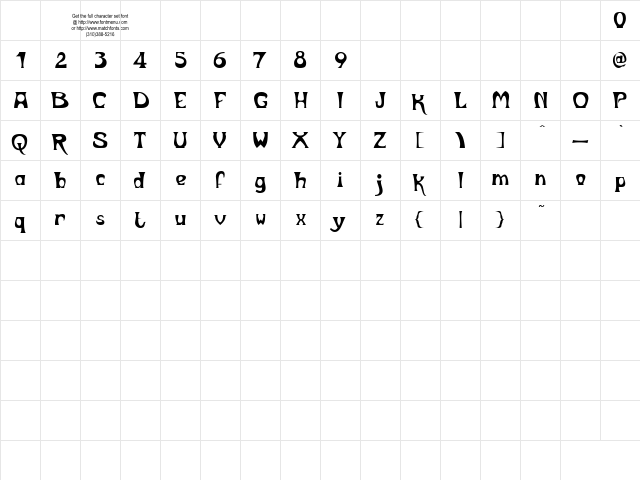
Metropolitain Tryout Regular
Design Context for Metropolitain Tryout Typeface
Metropolitain Tryout is a composed and adaptable typeface that performs quietly and consistently across a wide range of design contexts.